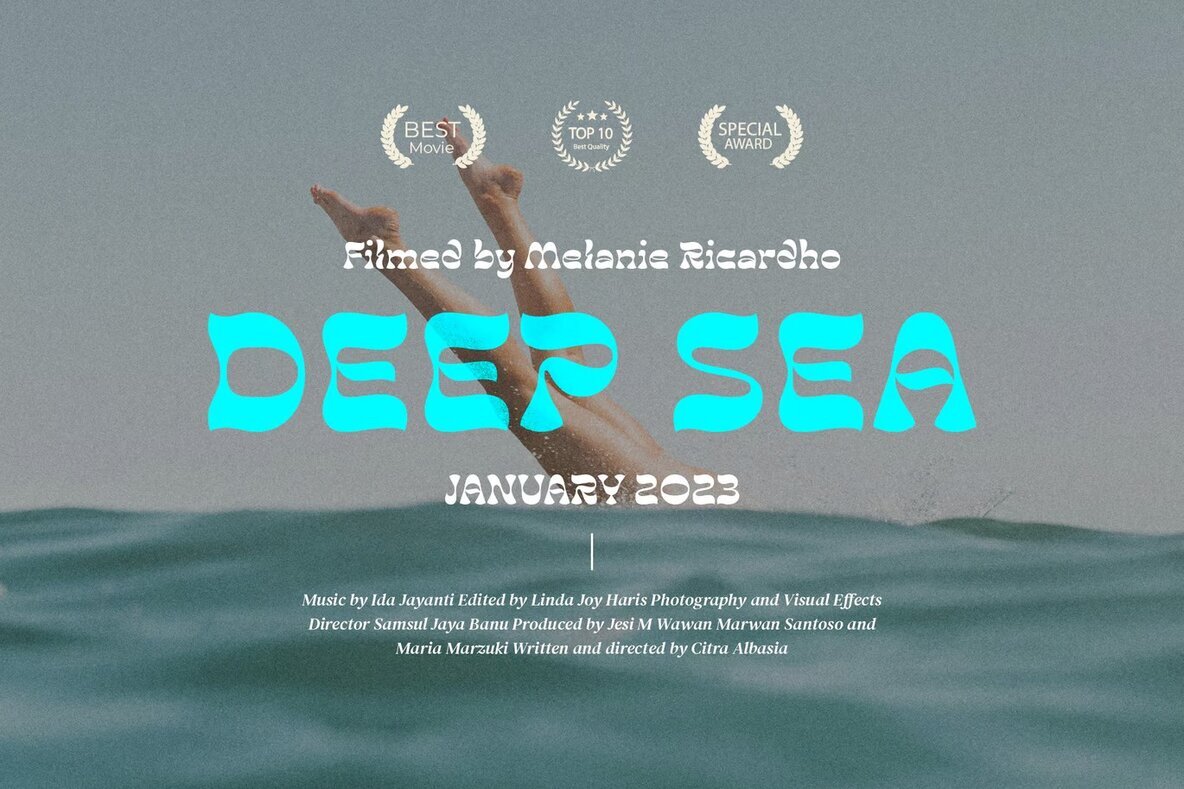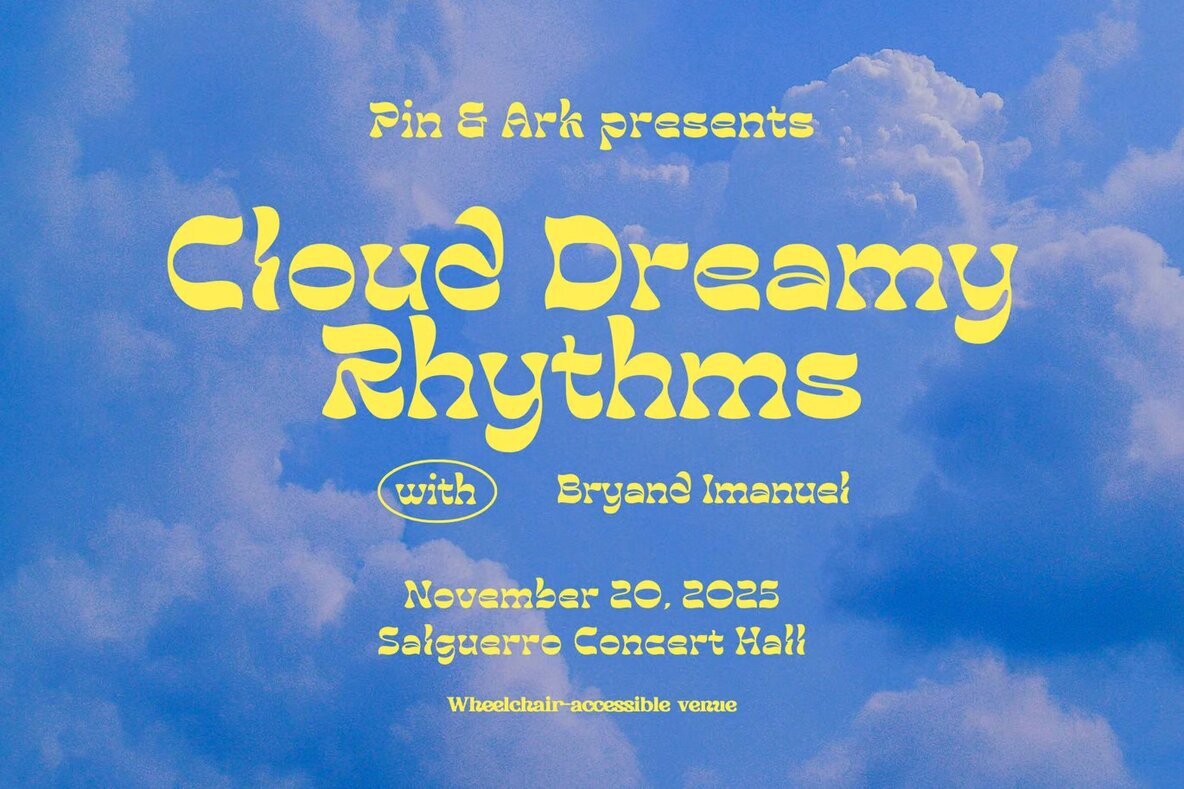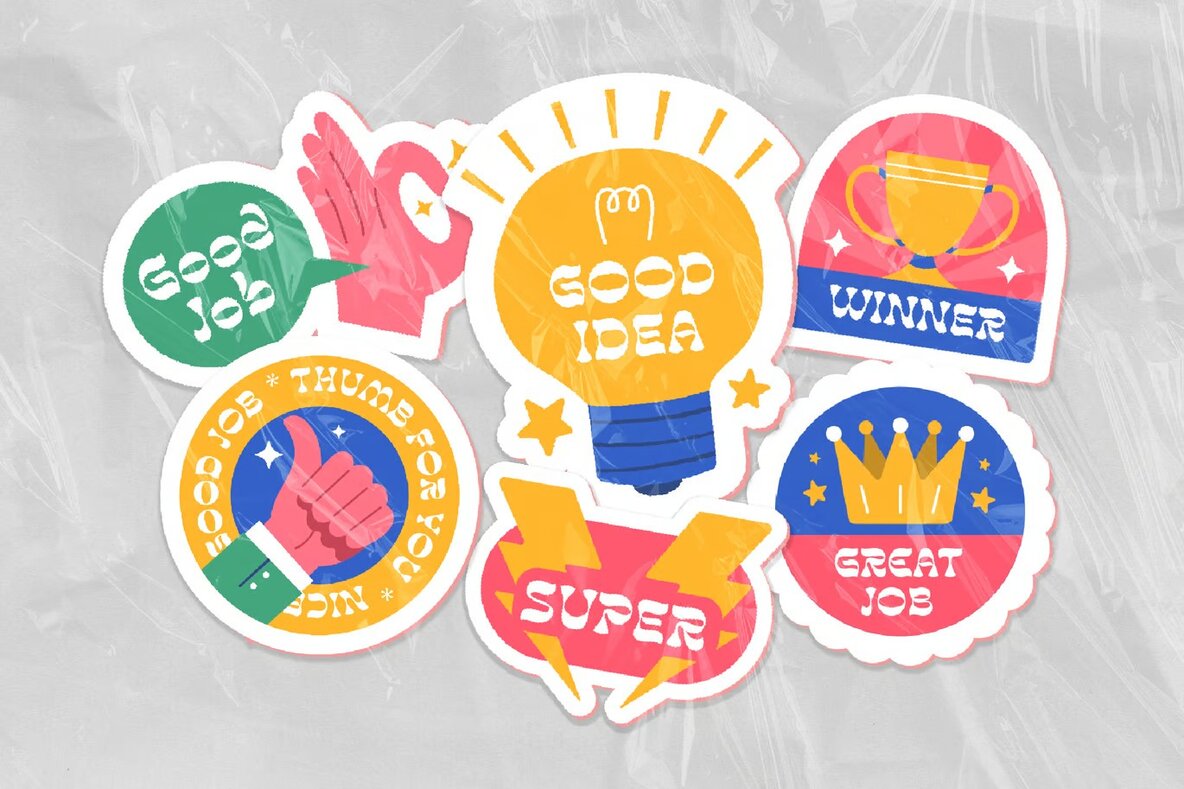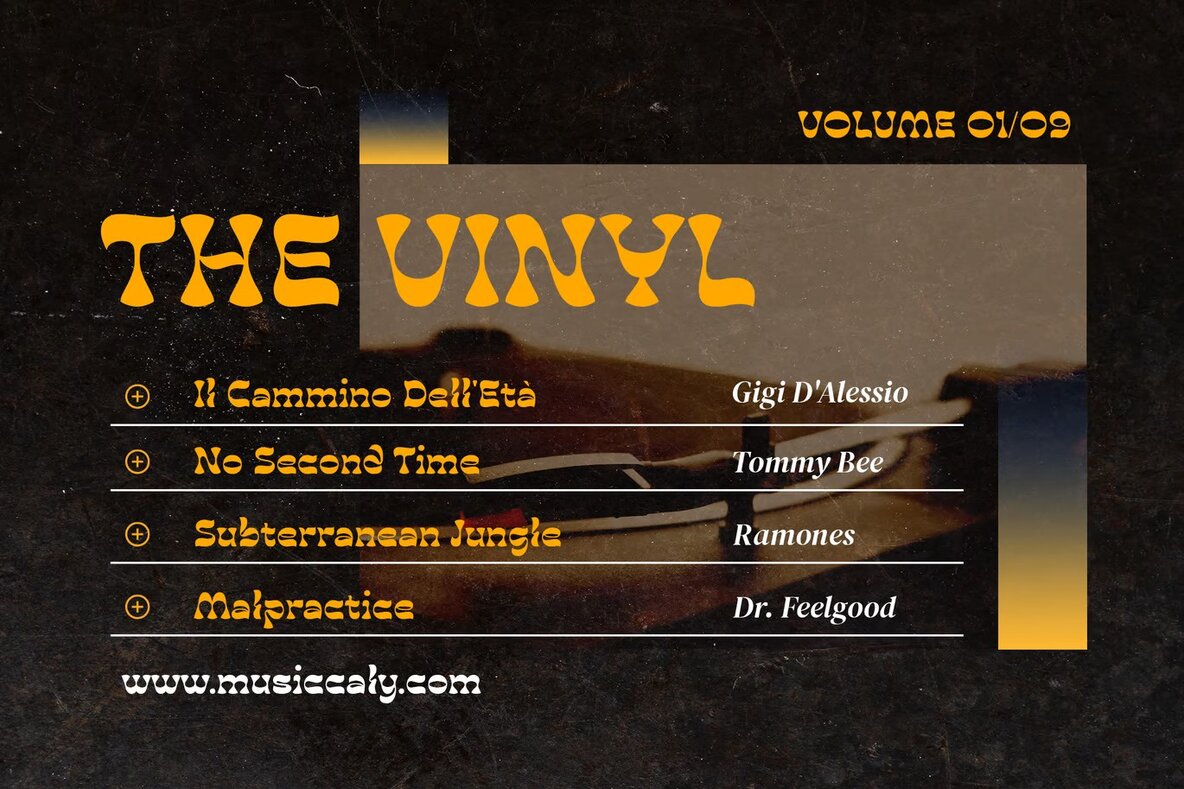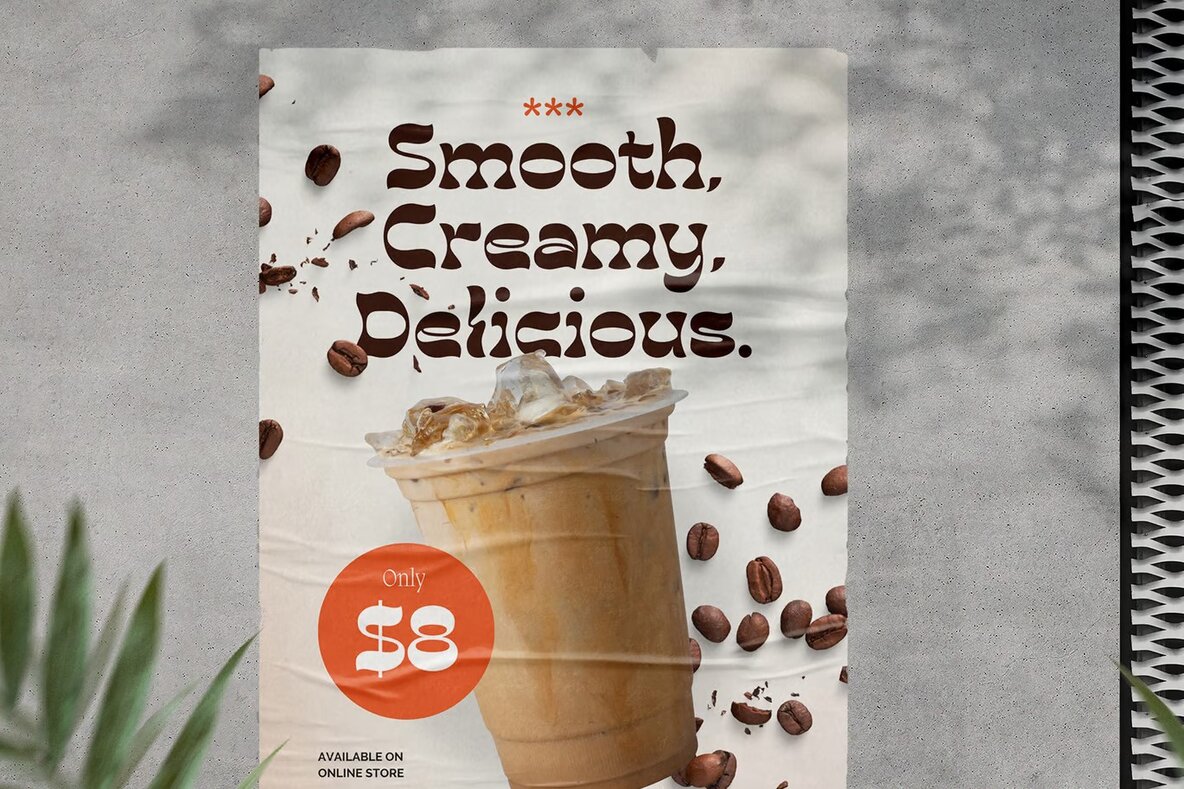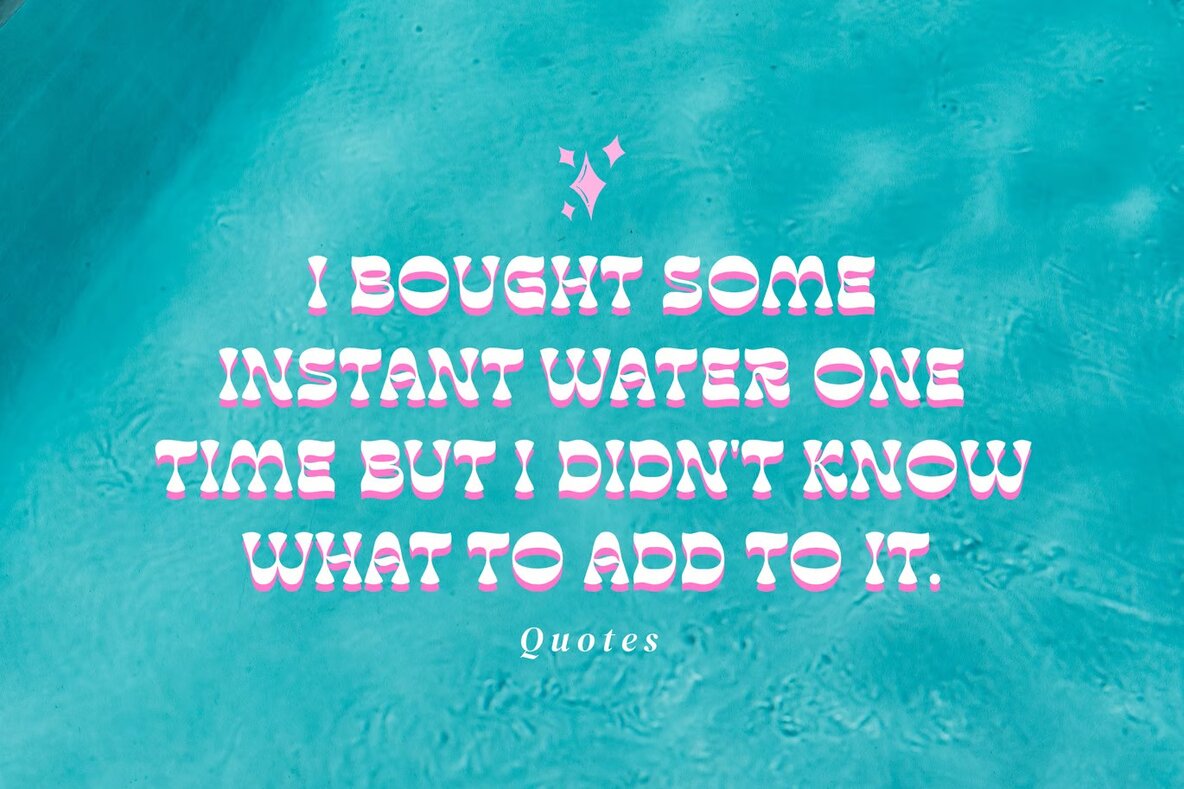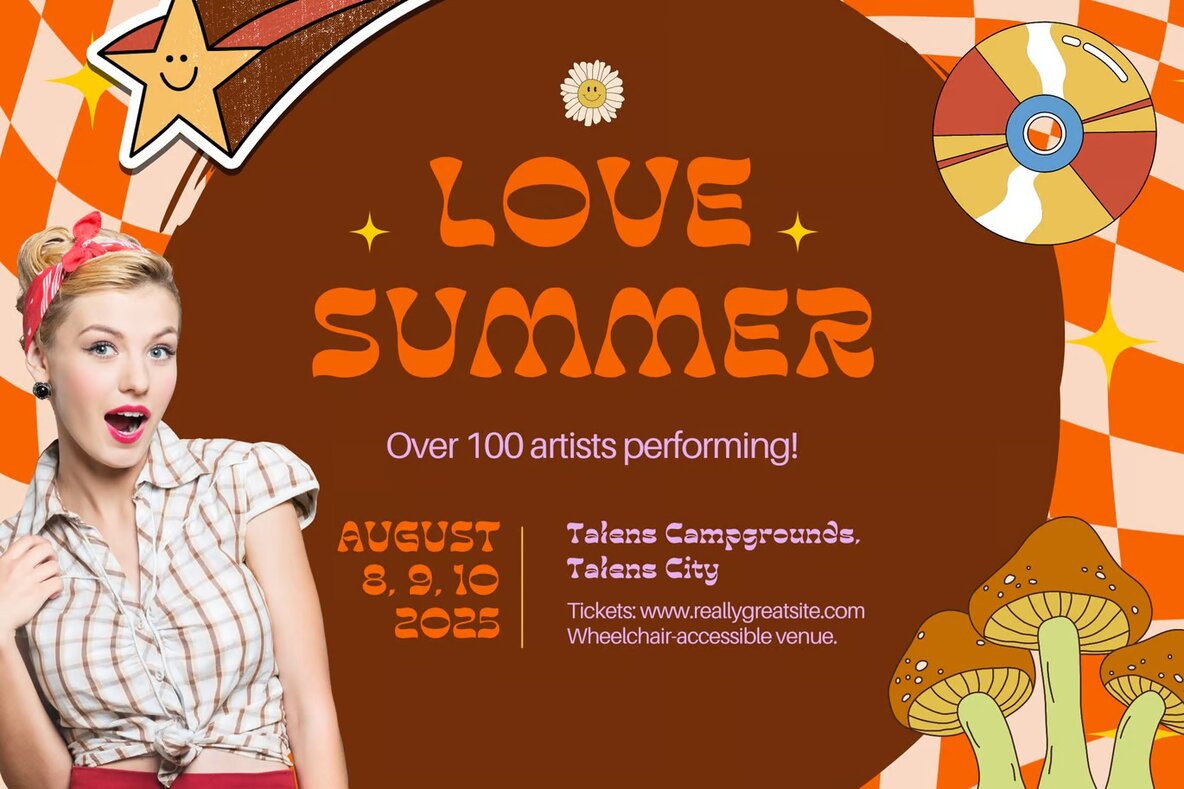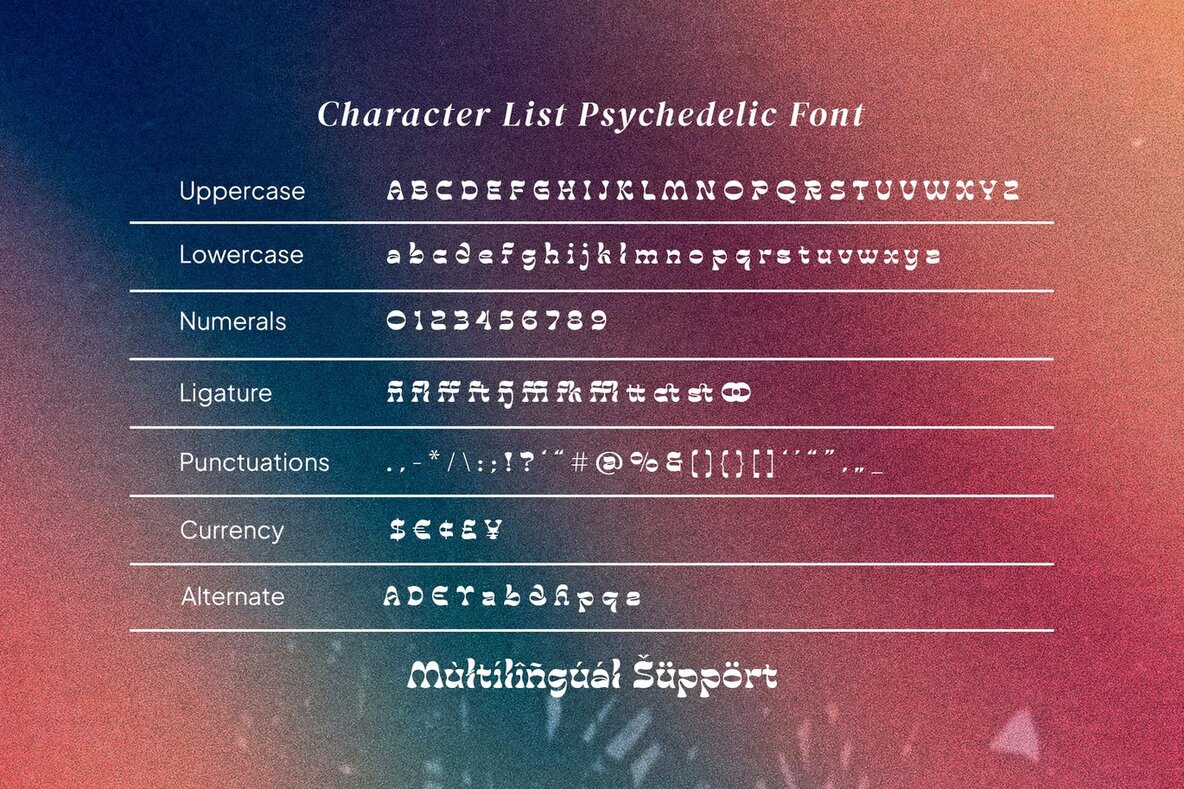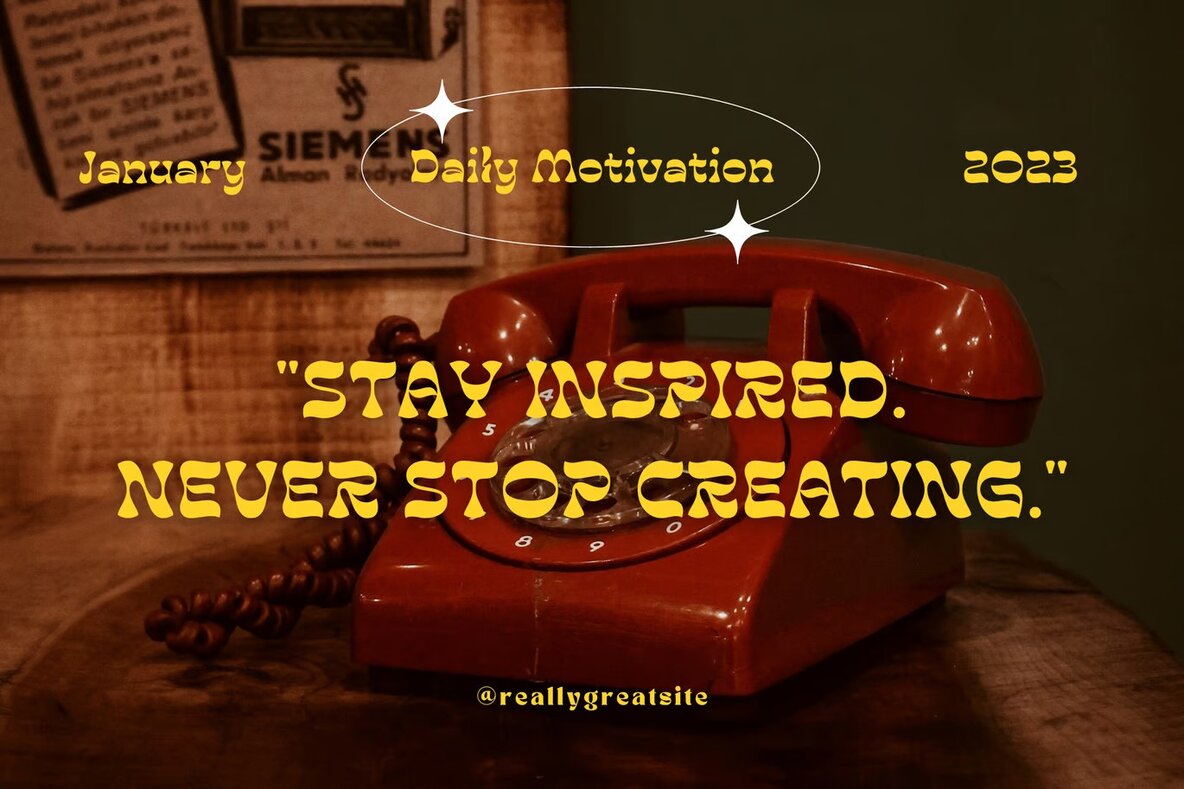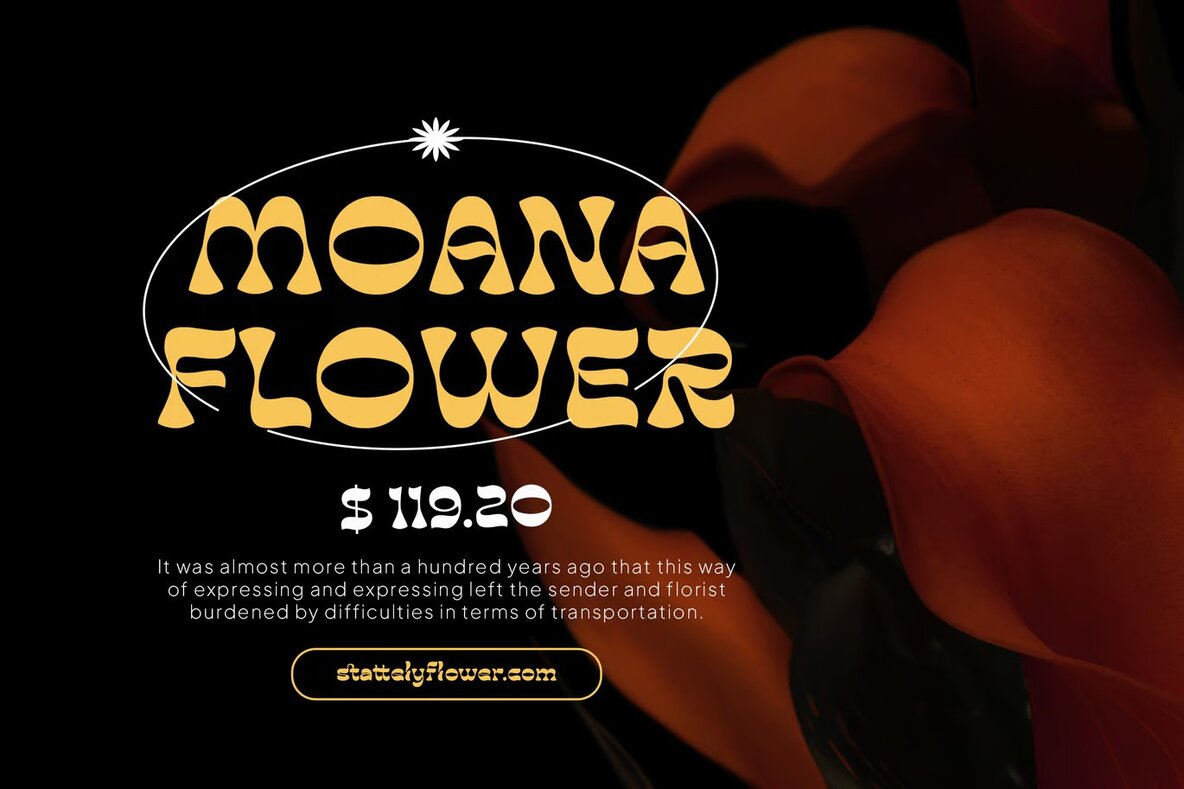
Endstart Font
Endstart Regular
Endstart is a bold and expressive modern retro psychedelic display serif font. Perfectly blending brutalist and pop art influences, this font is suitable for a wide range of design needs. Whether you're crafting a logo, branding materials, modern advertisements, or vintage retro designs, Endstart brings a unique and eye-catching aesthetic.
Ideal for adventurous projects such as mountain hiking brands, music posters, animations, and movie titles, it also works beautifully for retro summer poster quotes, book covers, editorial designs, websites, and blogs. Its versatile and stylish design makes it a great choice for adding a touch of nostalgia and flair to any creative project.